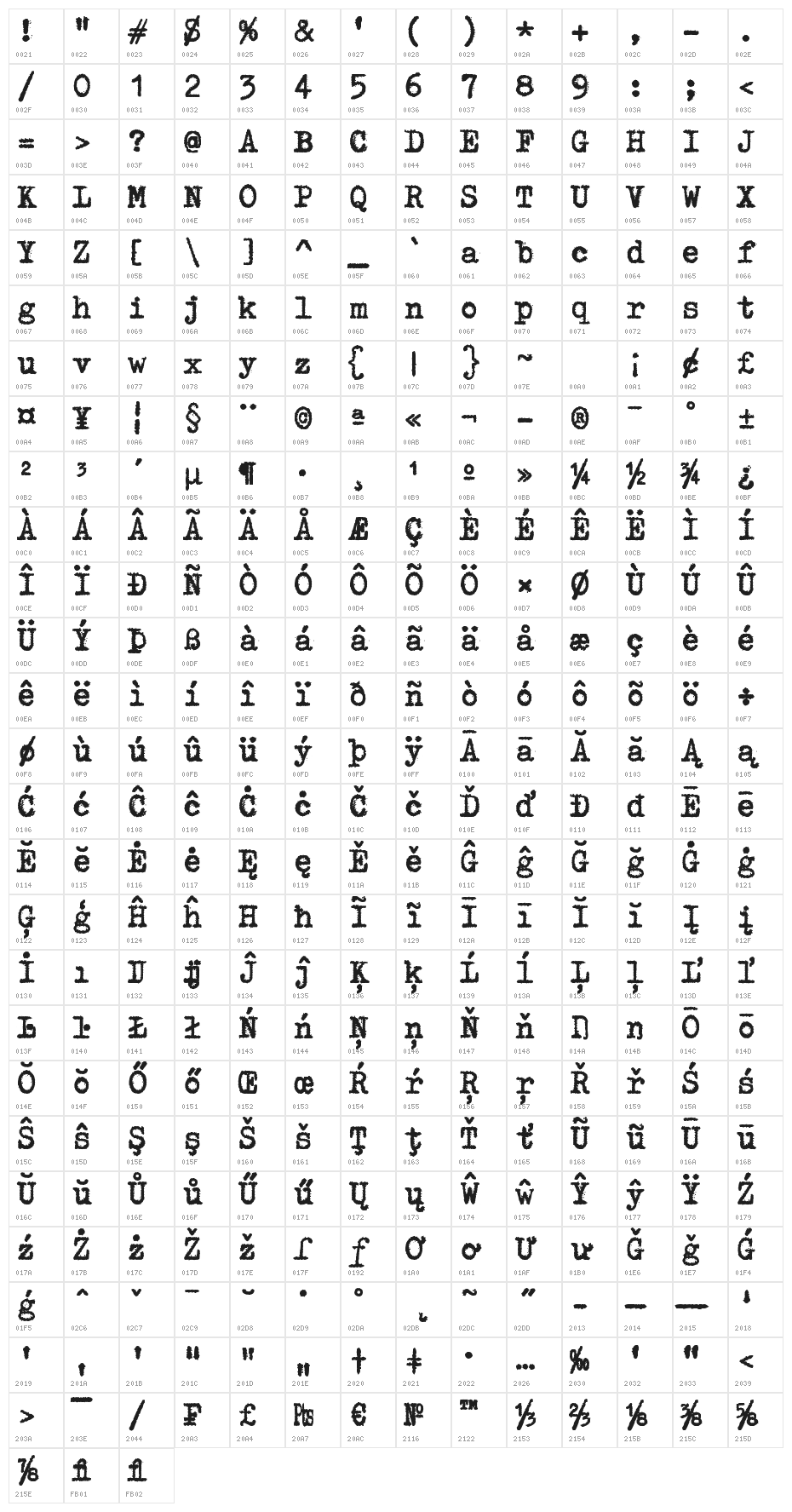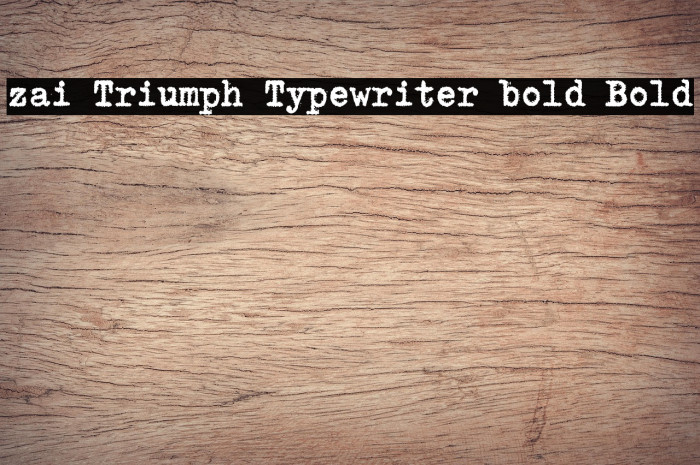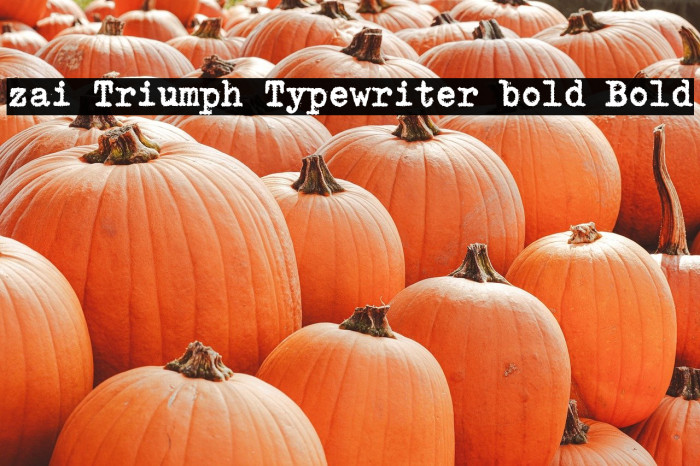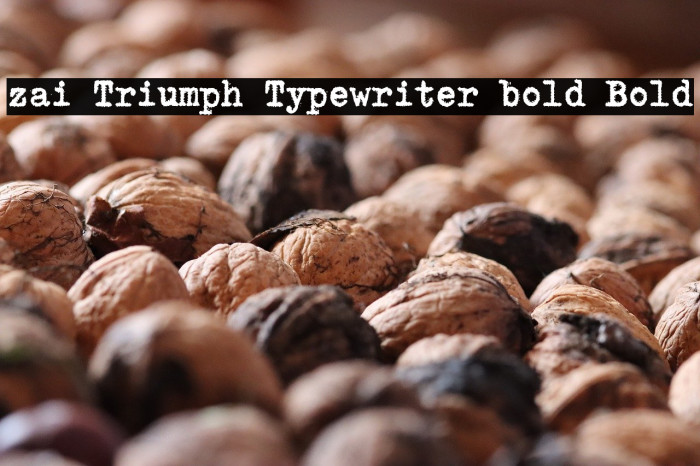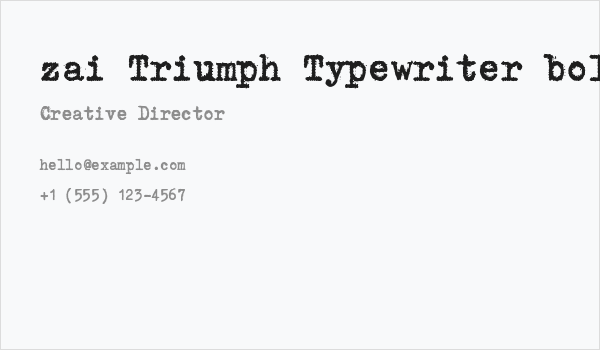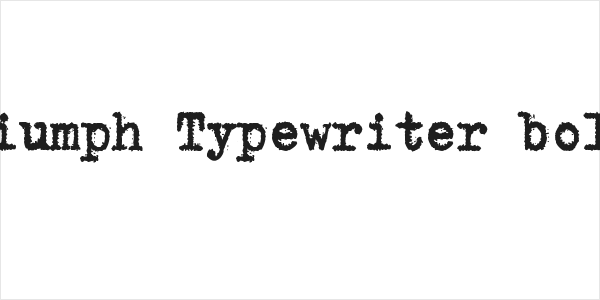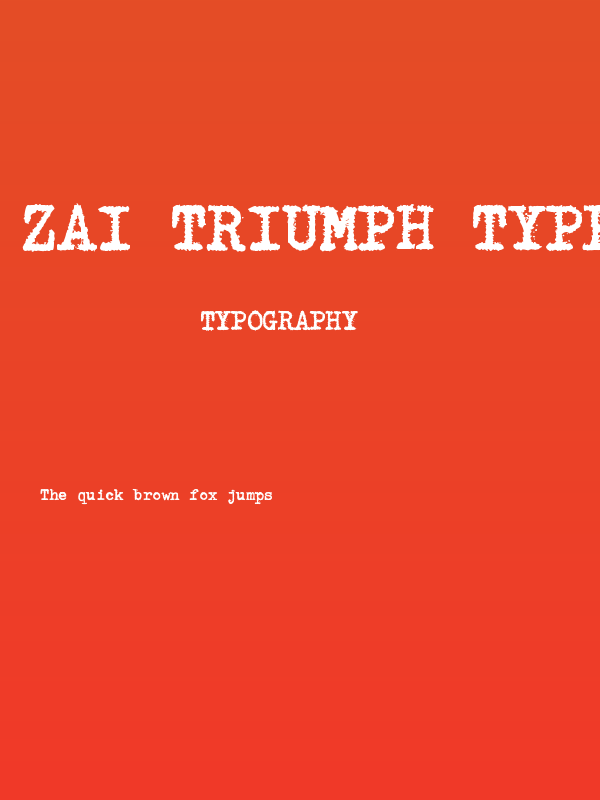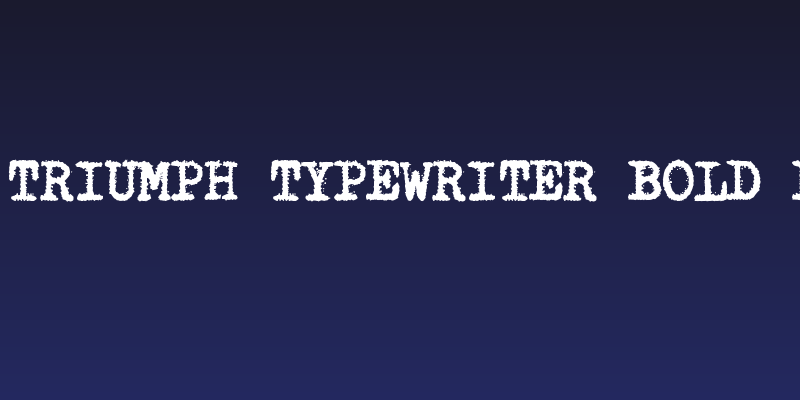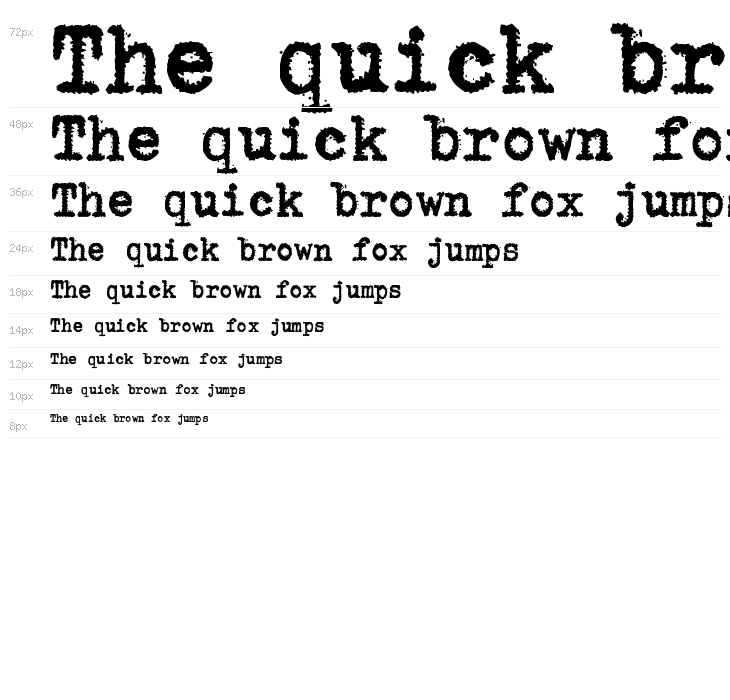
zai Triumph Typewriter bold Bold Font
zai Triumph Typewriter bold Bold Description
This typewriter-inspired font features bold, textured characters that evoke a vintage, mechanical feel. The letters are uniformly bold with a rough, distressed texture that mimics the appearance of ink on paper from an old typewriter. The uppercase and lowercase letters maintain a consistent style, with rounded edges and a slightly uneven baseline, adding to the authentic, retro aesthetic. Numbers and special characters are equally bold and textured, ensuring a cohesive look across all text elements. This font's unique style makes it ideal for projects that require a touch of nostalgia or a handcrafted appearance.
| Proposed Projects | Ideal for vintage-themed designs, retro posters, book covers, and branding that requires a nostalgic touch. |